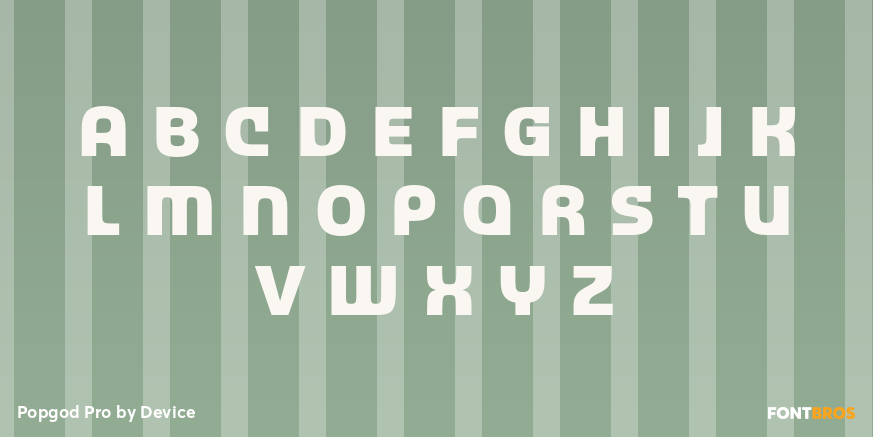
Popgod Pro
Font Family by Device
Popgod Pro is a futuristic sans serif with a sharp, high-tech attitude. Its clean geometry and forward-looking feel make it a strong choice when you want typography that reads as modern, digital, and intentionally styled for impact.
With a single font style in the family, it’s well suited to display work where personality matters most—think logos, posters, packaging, branding, social graphics, or signage that calls for a sleek sci-fi edge. Designed by Device, this release keeps the concept focused and distinctive rather than overly broad.